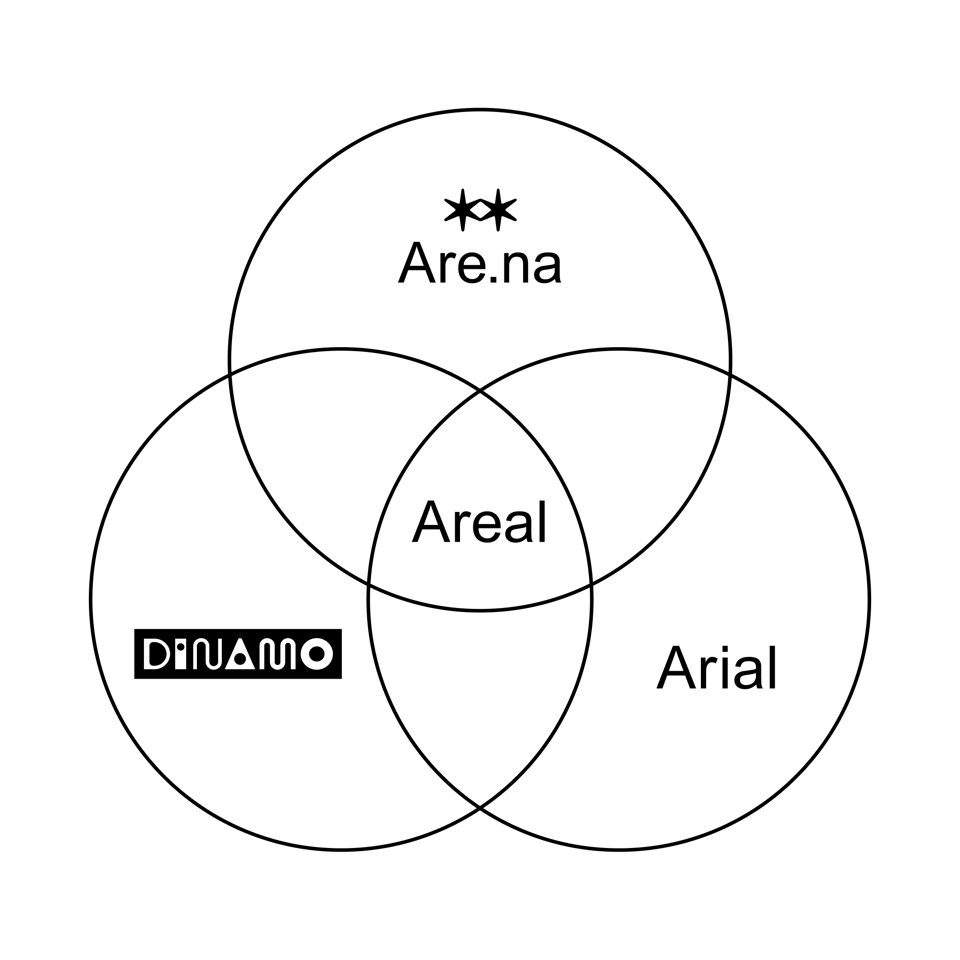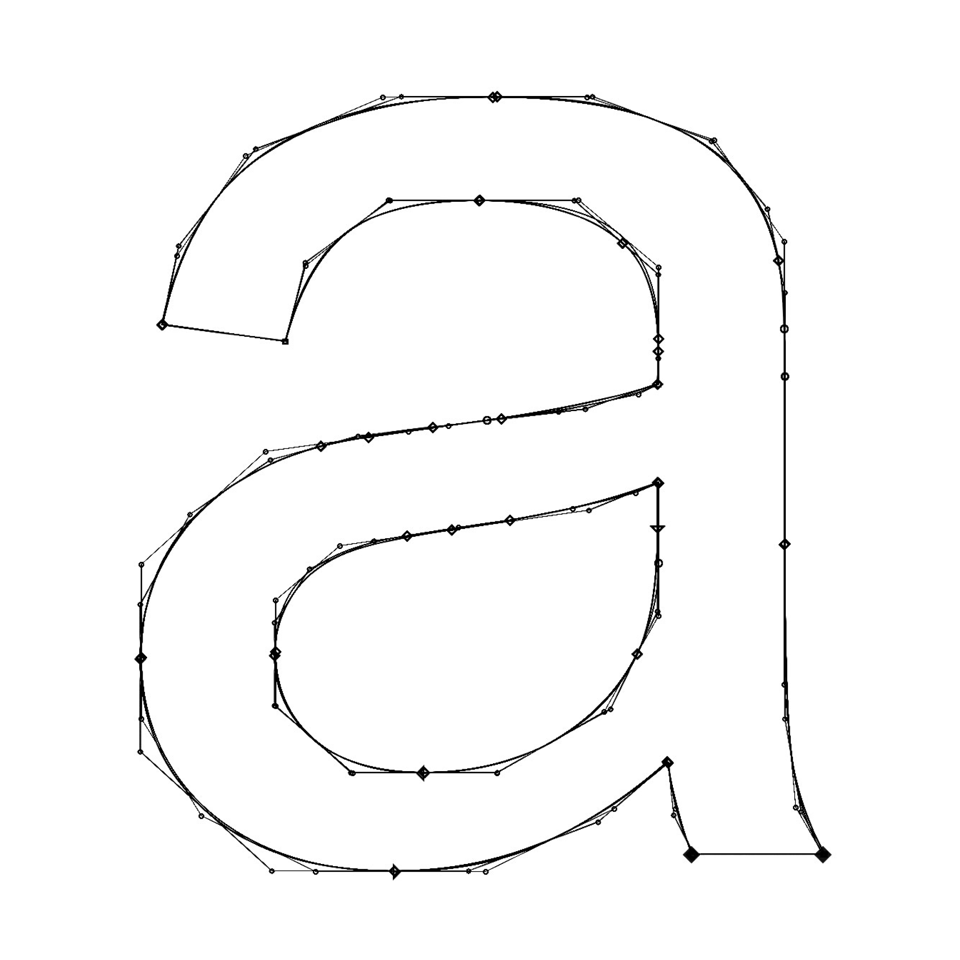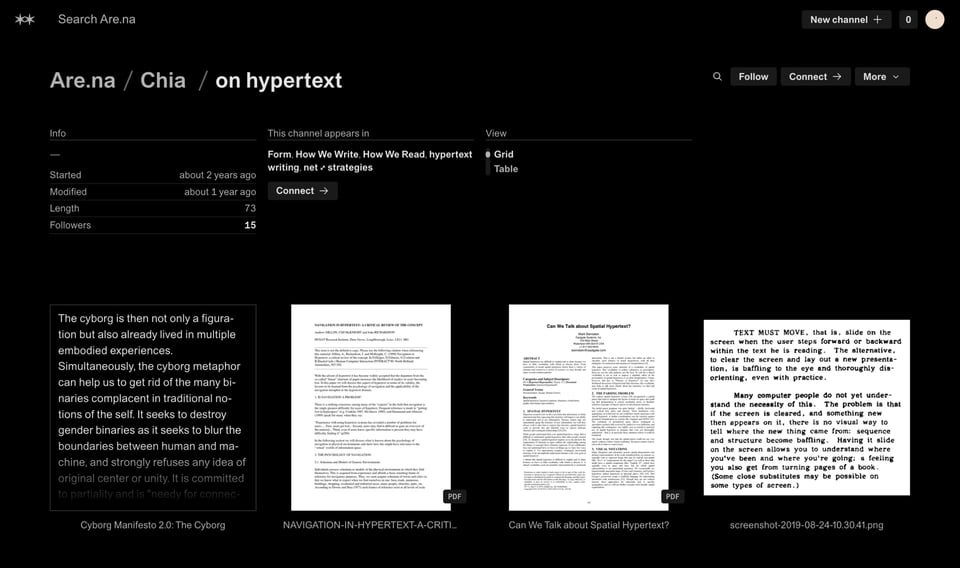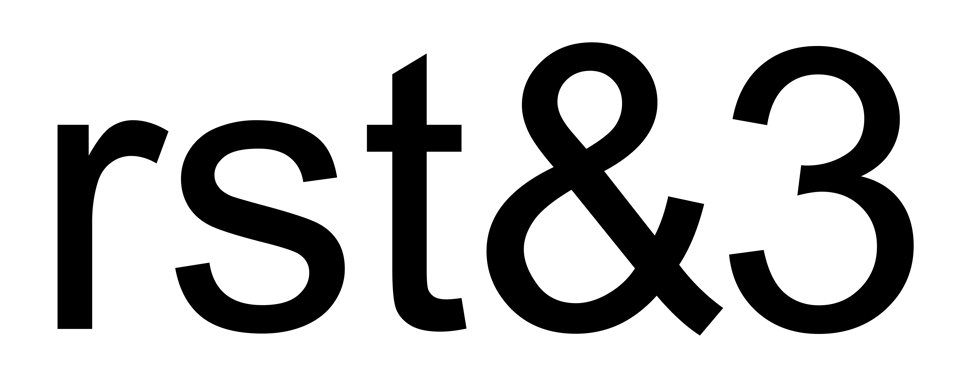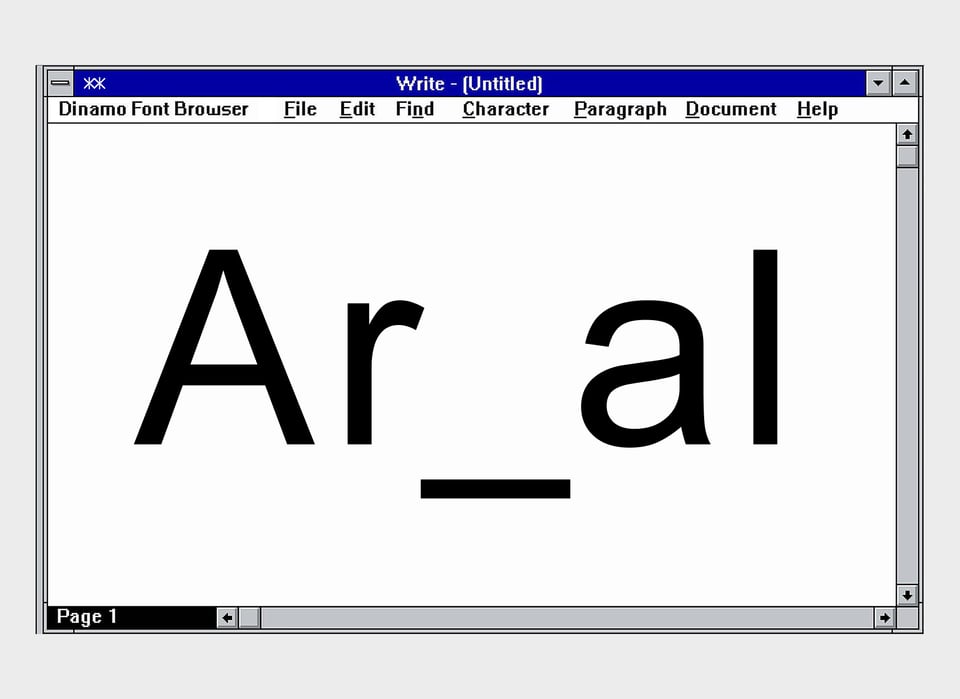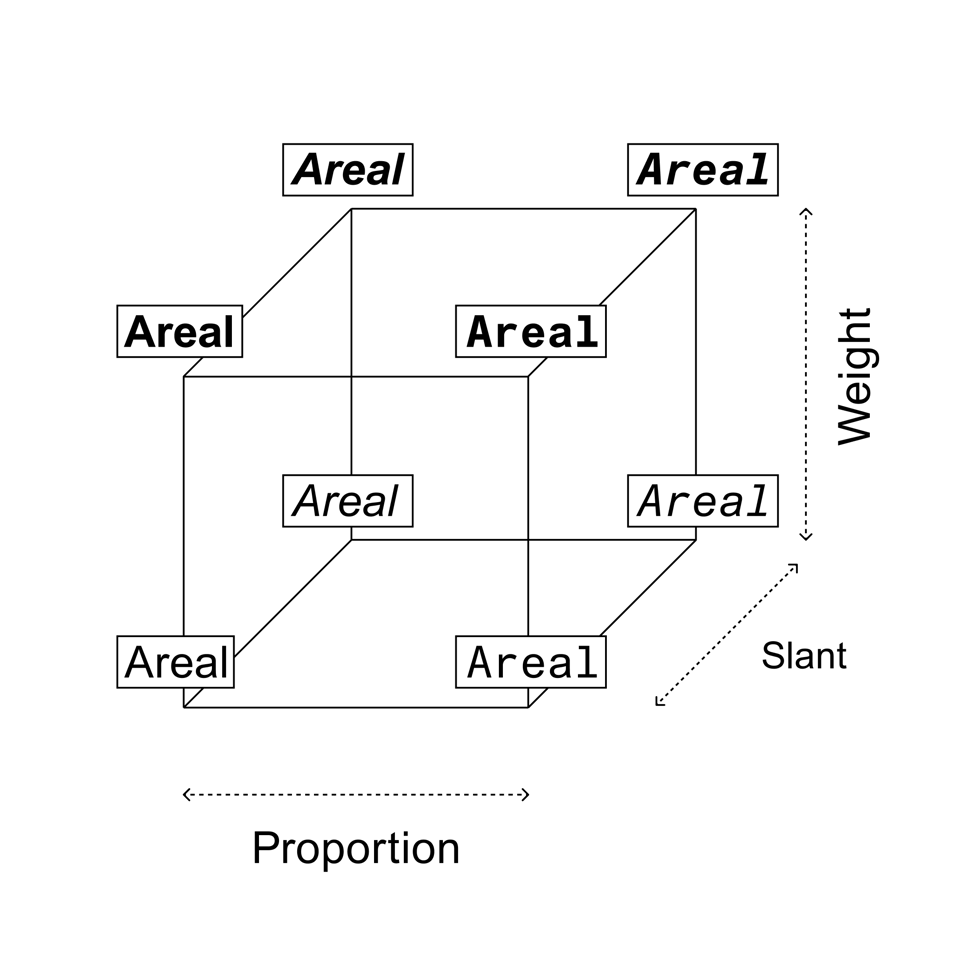
Introducing Areal, Are.na’s New Typeface
An interview with Dinamo’s Johannes Breyer on the custon Arial “revival” typeface.
![[A text doc from an old Windows operating system. Inside the doc, either Areal or Arial is written in the new typeface, the space where the 'e' or 'i' would go is blank.]](https://assets.buttondown.email/images/70e4e8c7-202d-44d6-be91-f6877ecbfcd7.jpg?w=960&fit=max)
Over the past year, we’ve been working with the design studio Dinamo on a custom typeface for Are.na. Starting today, the typeface you’ll see on Are.na is Areal, a “revival” of Arial, entirely redrawn and rebuilt from the ground up.
We’re excited about Areal because Dinamo’s revival is designed to be especially suited for Are.na. But a good deal of our excitement also has to do with the process and the thinking behind the project, which we get into in the interview below. We’ve long admired Johannes and the team at Dinamo — they have a lot of fun with what they do, and they also do it extremely well. There was truly no better partner for this project.
Meg Miller: I think the first I heard of this project was Cab putting a screenshot of a text exchange between the two of you in our Discord and saying Dinamo wants to do an Arial Are.na font. Everyone was really excited. This was back in July 2024, but it seemed like you had maybe talked about it in person before that?
Charles Broskoski: Yeah, Johannes and I met in 2019 at a conference called Post Design Festival. We chatted every once and a while, but the next time we saw each other was probably five years later when Johannes came to New York. We had the idea that we wanted Are.na and Dinamo to do something together, but it wasn't quite clear what it should be. Like with a lot of these collaborations that we do, and probably Johannes too, they start because we recognize a kindred spirit in the way the other person works, and the project just sort of develops from there.
I do remember being at dinner and talking about the process that we went through for making Sander [Are.na’s web client, launched in 2024] — how we completely rewrote the front-end of Are.na, but the design stayed the same. And part of the design staying the same was our decision to continue using Arial. I can’t say that everyone at Are.na loves Arial, but I definitely love Arial, and it’s so much a part of the look of Are.na.
Johannes Breyer: Arial is kind of a Frankenstein typeface — on one hand its origins involve these huge technology companies that were buying each other up, and so Arial changed hands a couple of times. It is basically a copy of Helvetica. It’s a system font, so at another stage it also became a kind of non-choice for a certain type of graphic designer who didn't want to make a point of choosing a cool or new font. But of course, choosing to go with the default is also a choice. It's a super convoluted and interesting space.
I remember when we met you told me about this performance art piece by Kristin Lucas called Refresh, where she legally changes her name to the same name. This piece talks about bureaucracy and corporations, but also actualizing and refreshing yourself. With programming it can be the same — a lot of time when you’re rewriting code, you’re rewriting it to be better and more beautiful, but it’s not so visible, so it’s possible people won’t even notice. So the question became, “If we want to make a font for Arena, but they already have the perfect font, how can we update Are.na's identity with a meaningful gesture?”
![[A Venn diagram with three circles — Are.na, Dinamo, and Arial — and in the overlap at the center: Areal.]](https://assets.buttondown.email/images/00492bf3-29e3-4ae1-96e4-c7ec72e08a96.png?w=960&fit=max)
Meg: Can I ask you to go more into this question of why Arial?1 Cab, why was Arial originally chosen as the typeface for Are.na? And Johannes, why was it interesting for Dinamo to remake this typeface?
Cab: For us there's a few parts to it. Personally, Arial has always had a pretty positive connotation for me. In the late ’90s/early 2000s web design scene, there were no custom fonts, so your choices were basically Arial, Verdana, Times New Roman, and a few other default fonts. Arial always struck me as the most plain and the least snobby choice. You know, in the early 2000s Helvetica was the first font that I watched become very cool and then kind of cringey within a very short lifecycle. Helvetica was like an Eames chair or something — a shorthand for people to say “I'm interested in design,” which then became lame almost immediately afterwards. But Arial has always been kind of lame [laughs]. In that way, it’s stayed the same.
![[An open Are.na channel by Ava Kaufman titled Issey Miyake, with images of various Issey Miyake clothes, editorials, and references.]](https://assets.buttondown.email/images/d4bba603-4728-403e-b2c4-a24960d18d2c.png?w=960&fit=max)
The second part is that when we simplified the Are.na interface in 2014 to the structure that it currently uses [with the breadcrumb navigation], we adopted Arial across the board. When we made this interface change, our desire was to be as default as we could so that Are.na wouldn’t get in the way of the content. In other words, we wanted Are.na to look good, but to fade into the background as much as possible.
This is a very long-winded way of saying that the reason we wanted to use Arial is because it doesn’t have much of a “look” at all. Of course, like we’ve been talking about, it does have this history and it’s used as a default and there are all of these connotations that get imbued into it. But I still think it’s about the closest you can get to that. Do you agree with that, Johannes?
[2] As Mindy Seu and Laura Coombs point out in their note about using Arial in Cyberfeminism Index, Arial is one of the few systems fonts with a woman designer.